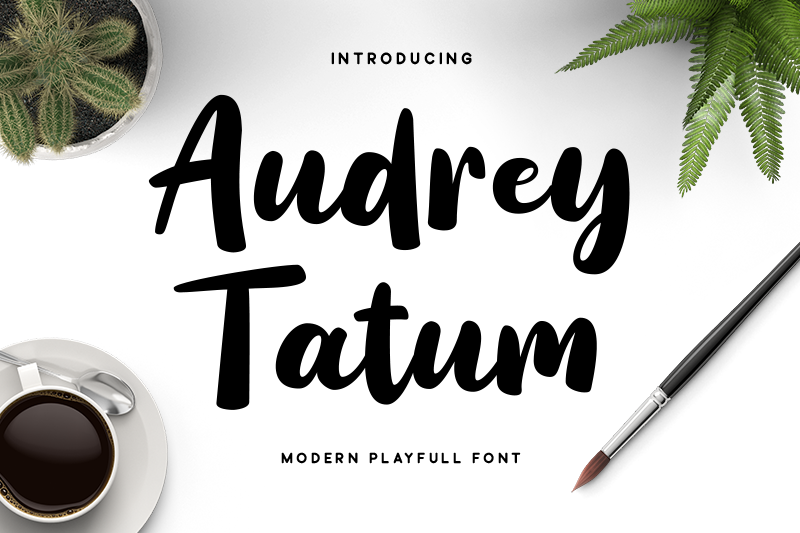
Preview and download Audrey Tatum Font. Created by Akhmad Reza Fauzi in Script Handwritten styles with Free for personal use license.
Font name: | Audrey Tatum |
Author: | Akhmad Reza Fauzi |
Note by Akhmad Reza Fauzi | |